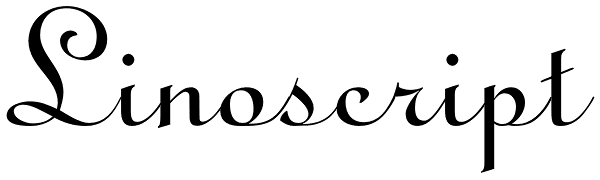
Linoscript
Linoscript was designed by Morris Fuller Benton in 1905 and released by American Type Founders as Typo Upright; when it was integrated into the Linotype technology in 1926, it was renamed Linoscript. Modeled on the then-popular style of upright...